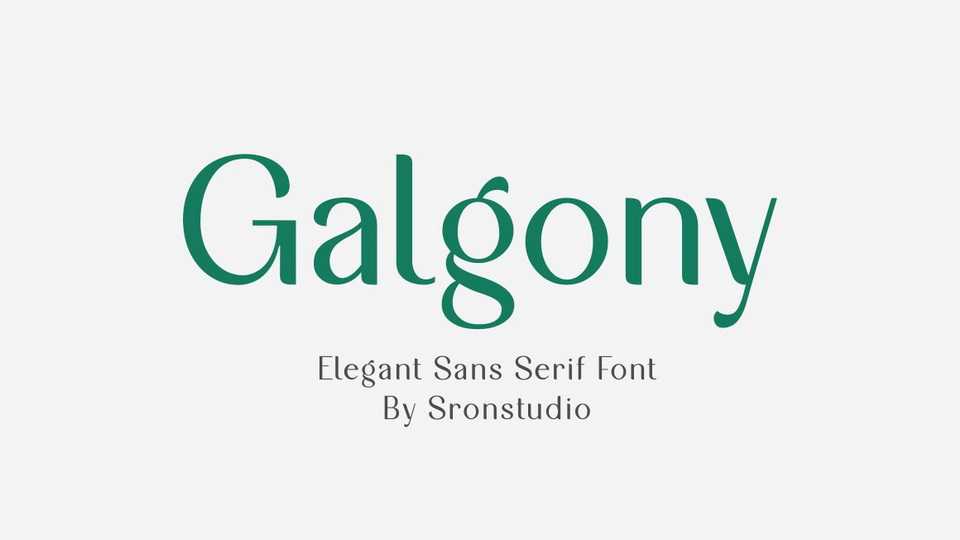
Download Galgony font, an elegant sans serif typeface. Galgony is perfect for invitations, cards, quotes, greeting cards, logos, business cards and every other design which needs a customized touch.
Designer: Sronstudio